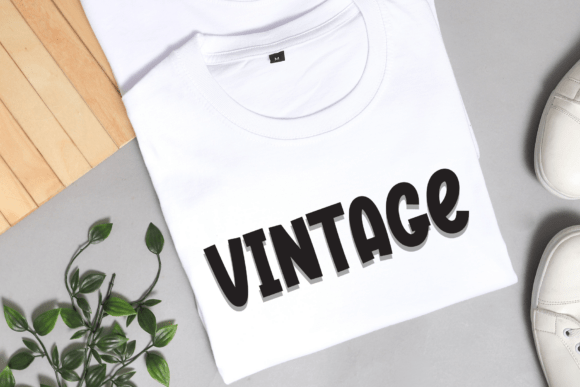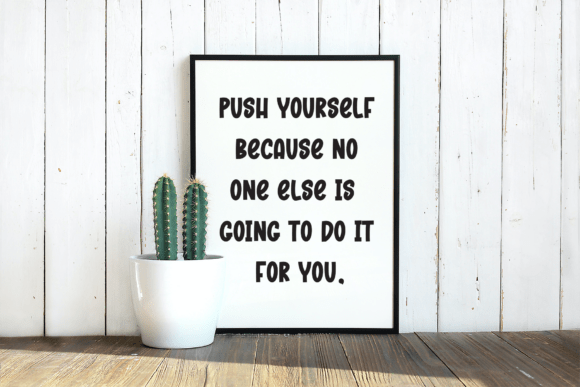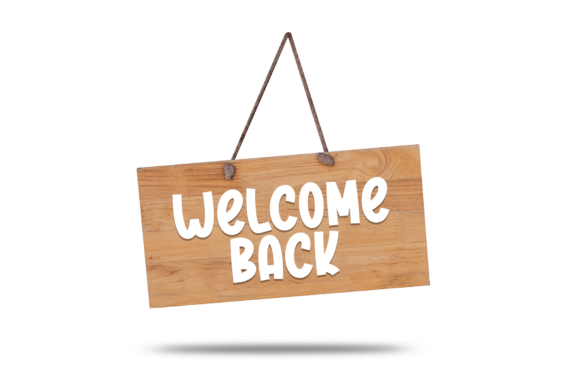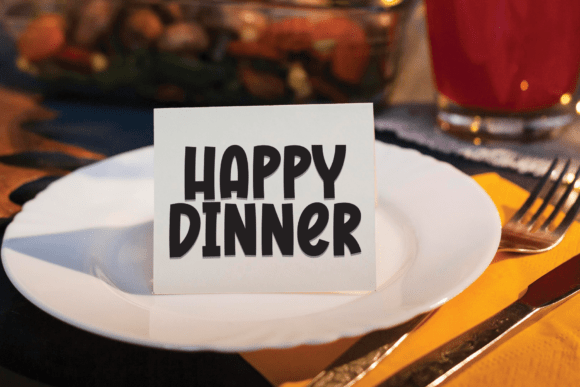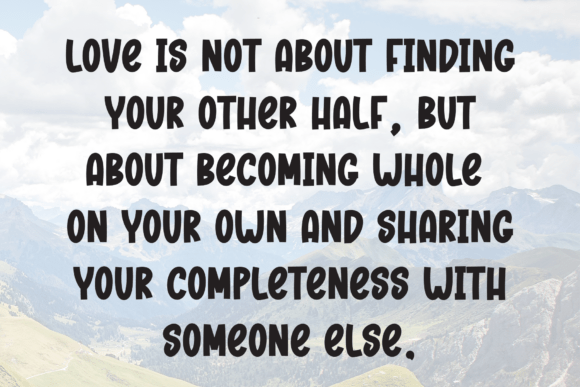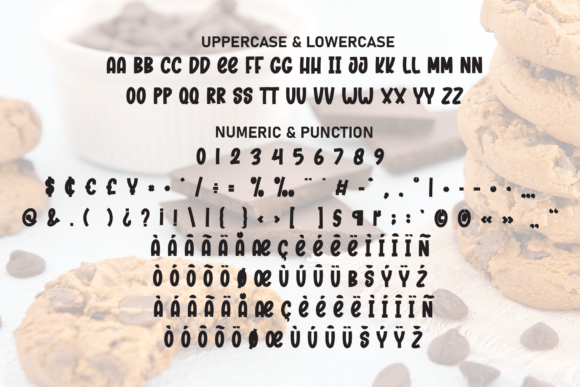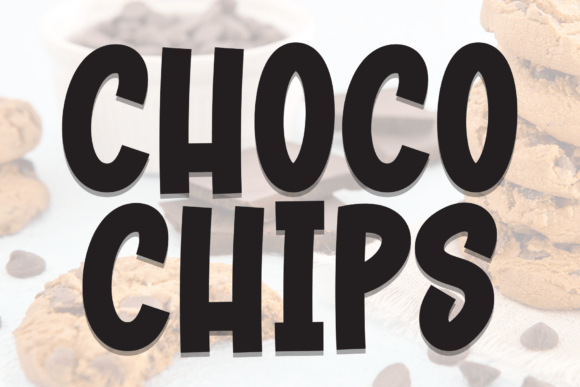
Introducing Choco Chips Font: The Sweetest Addition to Your Design Toolbox
Are you a designer, crafter, or DIY enthusiast looking for a font that’s as sweet as it is versatile? Look no further than Choco Chips Font! This bold, chunky font boasts a friendly handwritten style that’s sure to add a dash of fun and flavor to any project. With its thick strokes and soft curves, Choco Chips Font is the perfect choice for packaging, bakery branding, food labels, and kids’ projects.
The Characteristics of Choco Chips Font
So, what makes Choco Chips Font so special? Here are just a few of its key characteristics:
- Bold and Chunky: Choco Chips Font features thick strokes that give it a sturdy, attention-grabbing presence.
- Handwritten Style: With its soft curves and playful flair, Choco Chips Font has a friendly, approachable vibe that’s perfect for brands and projects that want to feel approachable and fun.
- Versatile: Whether you’re designing packaging, branding, or marketing materials, Choco Chips Font is the perfect choice for any project that needs a little extra charm.
Perfect for Packaging and Branding
Choco Chips Font is a natural fit for packaging and branding projects, particularly those in the food and beverage industry. Its bold, eye-catching style makes it perfect for:
- Food labels: Add a touch of whimsy and fun to your food labels with Choco Chips Font.
- Bakery branding: Make your bakery stand out with a custom logo or branding materials featuring Choco Chips Font.
- Packaging design: Use Choco Chips Font to add a playful touch to your product packaging and make it stand out on store shelves.
Kids’ Projects and Crafts
Choco Chips Font isn’t just limited to commercial projects – it’s also perfect for kids’ crafts and activities. Here are a few ideas:
- Custom party invitations: Create one-of-a-kind party invitations featuring Choco Chips Font.
- Kids’ crafts: Use Choco Chips Font to add a fun touch to kids’ crafts, such as homemade cards, gift tags, or artwork.
- DIY projects: Add a playful touch to your DIY projects, such as customized mugs, t-shirts, or tote bags.
Why Choose Choco Chips Font?
So, why should you choose Choco Chips Font for your next project? Here are just a few reasons:
- Unique style: Choco Chips Font has a one-of-a-kind style that’s sure to make your project stand out.
- Easy to read: Despite its bold, chunky style, Choco Chips Font is easy to read and understand.
- Versatile: Choco Chips Font can be used in a wide range of projects, from commercial branding to kids’ crafts.
Get Creative with Choco Chips Font
Ready to get creative with Choco Chips Font? Here are a few tips to help you get started:
- Experiment with colors: Try pairing Choco Chips Font with bright, bold colors to really make it pop.
- Mix and match: Combine Choco Chips Font with other fonts or graphics to create a unique look.
- Have fun: Most importantly, have fun and be creative! Choco Chips Font is all about adding a touch of whimsy and fun to your projects.
In conclusion, Choco Chips Font is a sweet and versatile addition to any design toolbox. With its bold, chunky style and friendly handwritten vibe, it’s perfect for packaging, branding, kids’ projects, and more. So why wait? Download Choco Chips Font today and start adding a touch of fun and flavor to your designs!